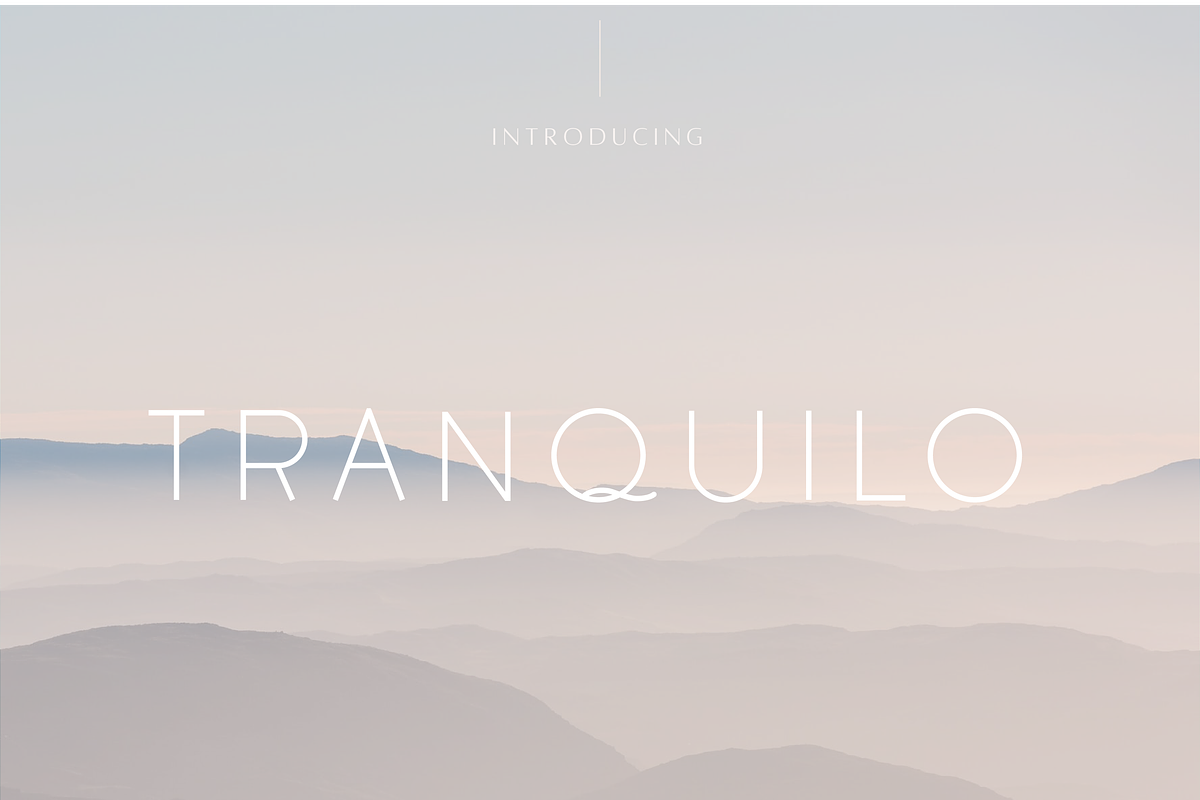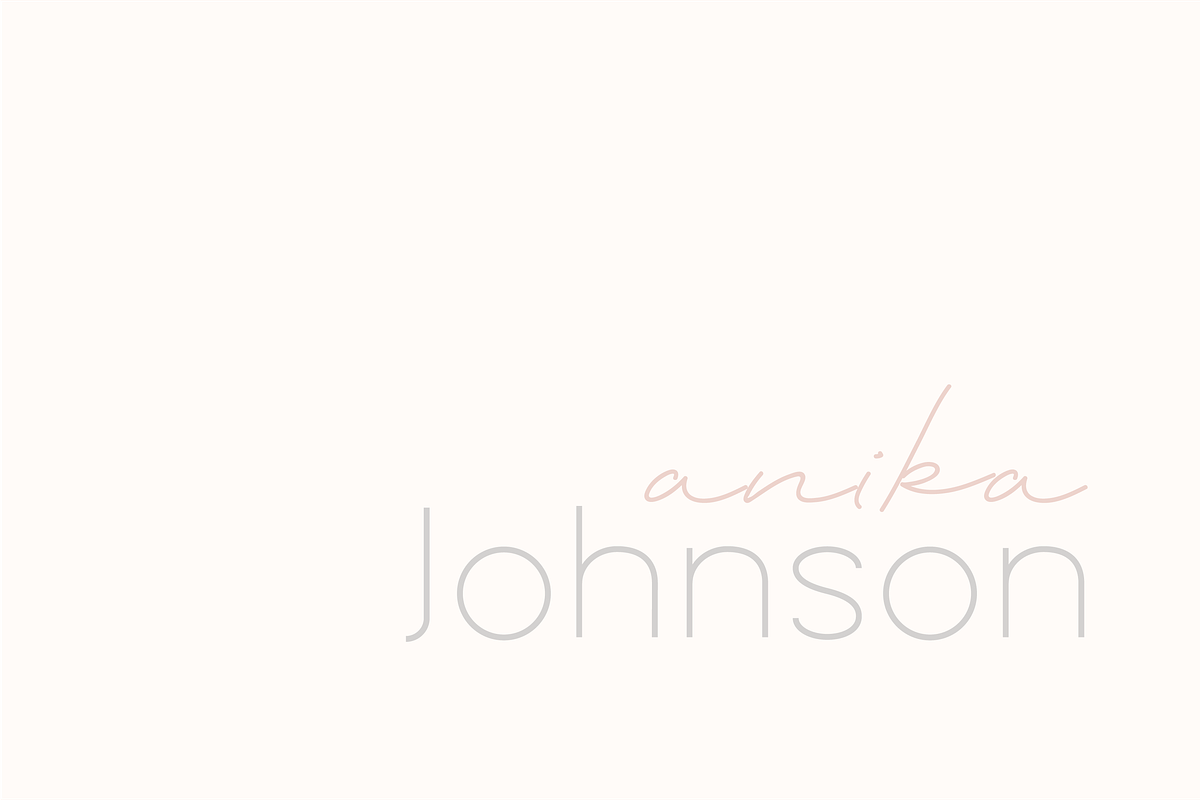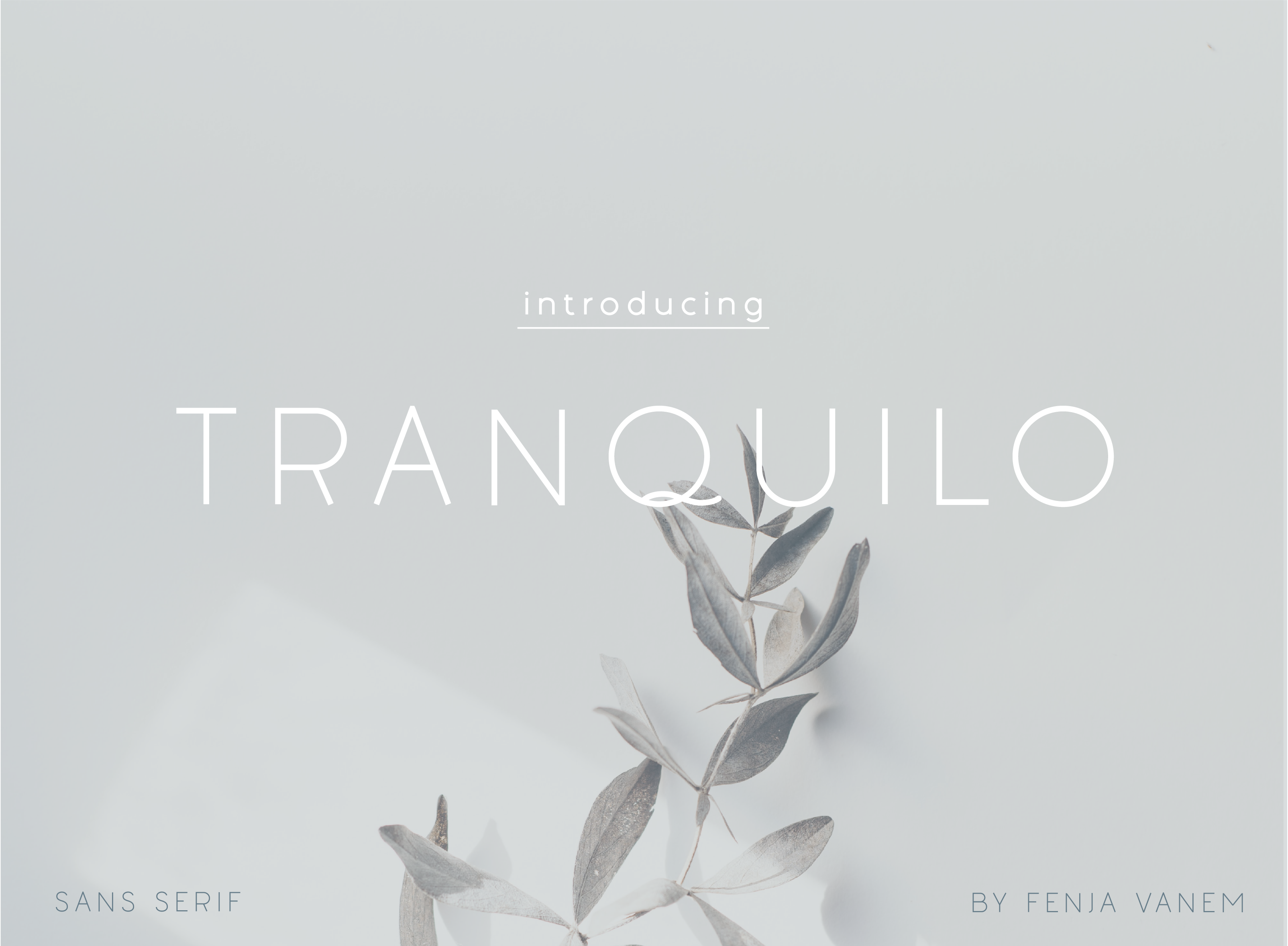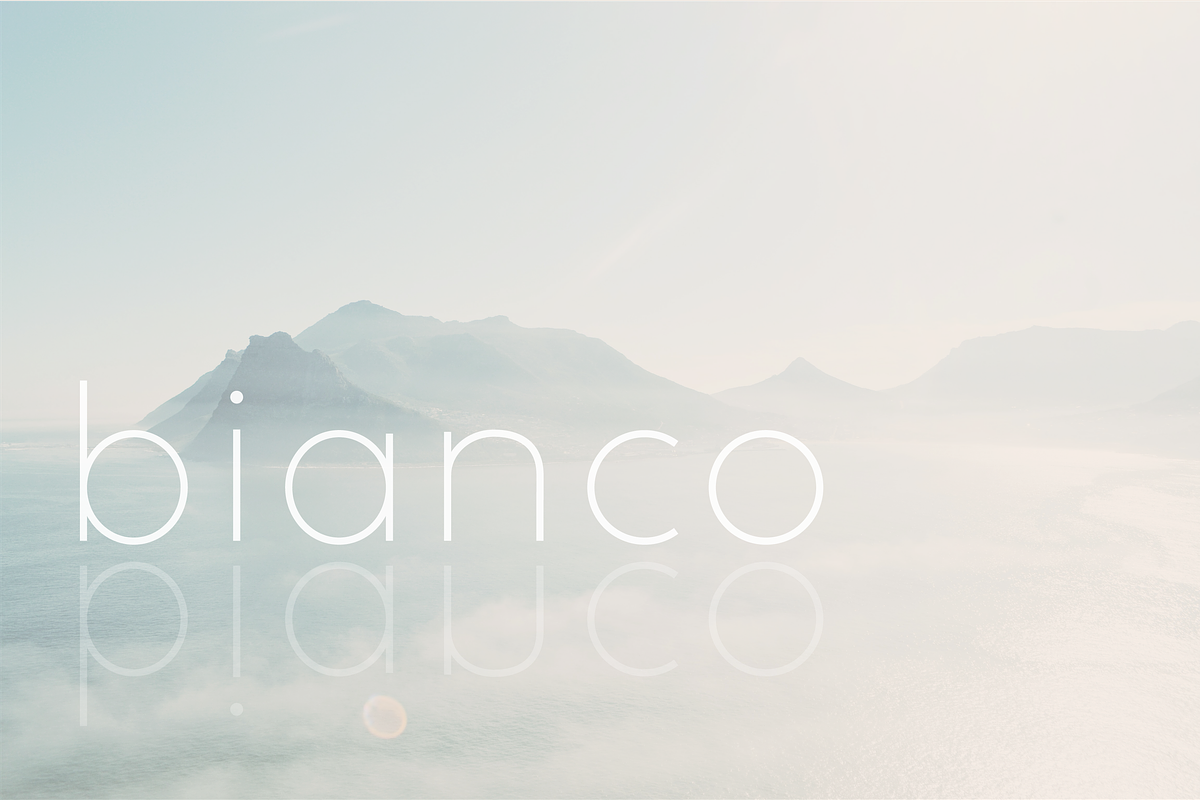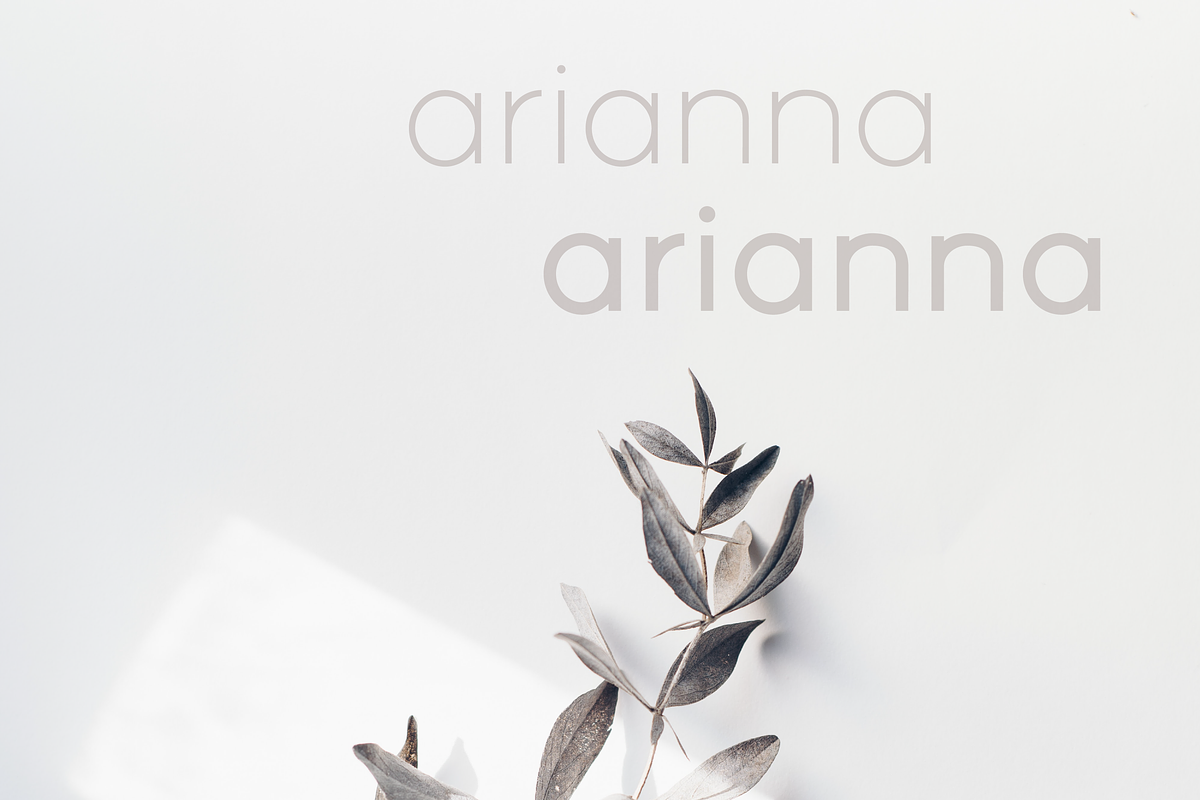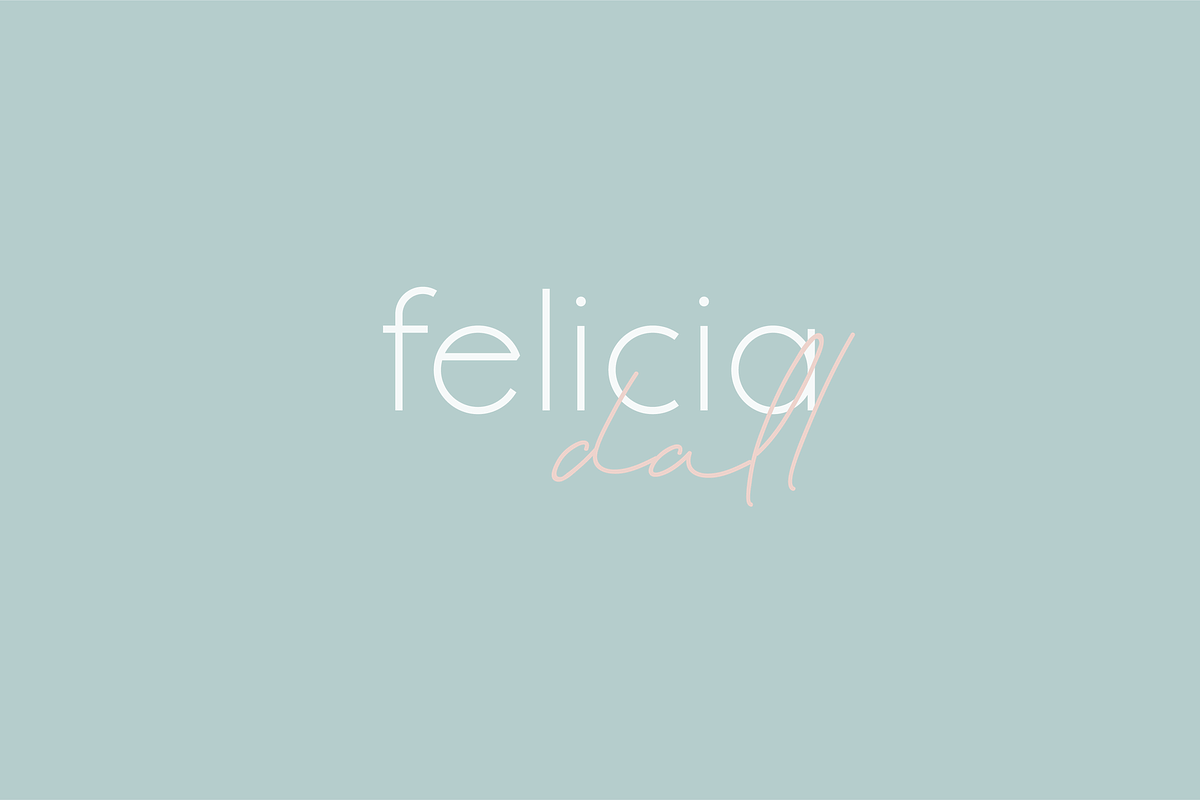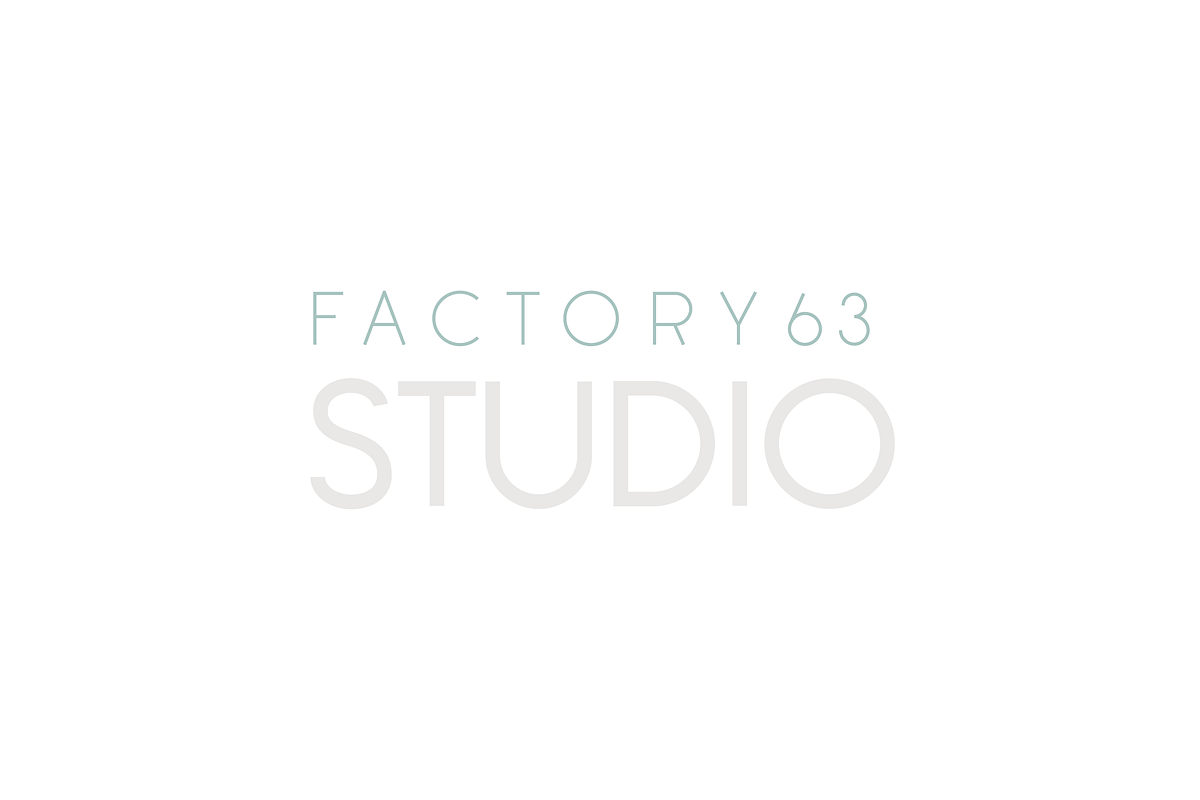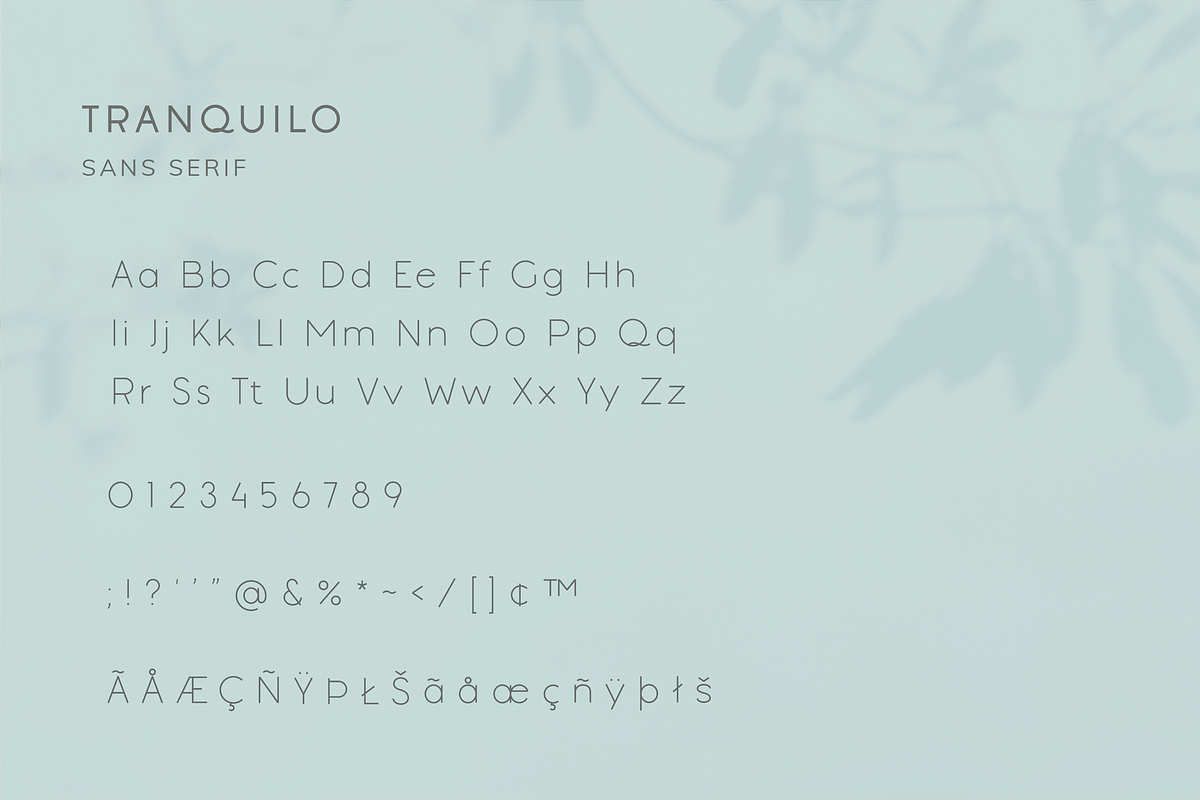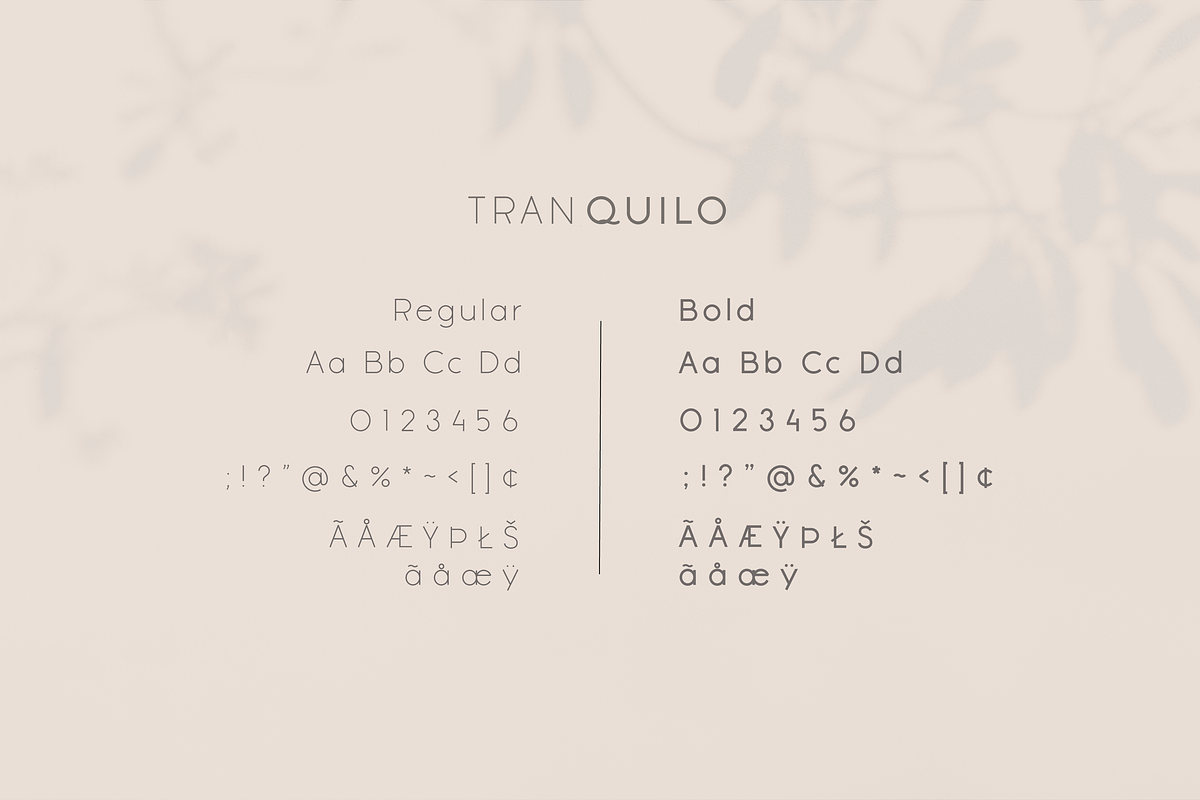
Tranquilo | Sans Serif Font
Tranquilo is a minimalistic light-weight Sans Serif font with a clean and crisp design and unique, eye-catching details. Tranquilo will add a touch of serenity and elegance to any design project. Perfect for branding, fashion, and other high-end projects that require a refined and on-trend aesthetic.